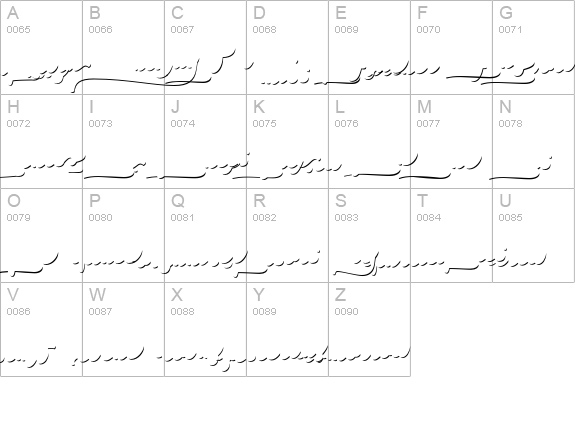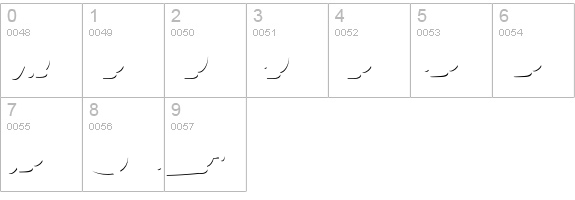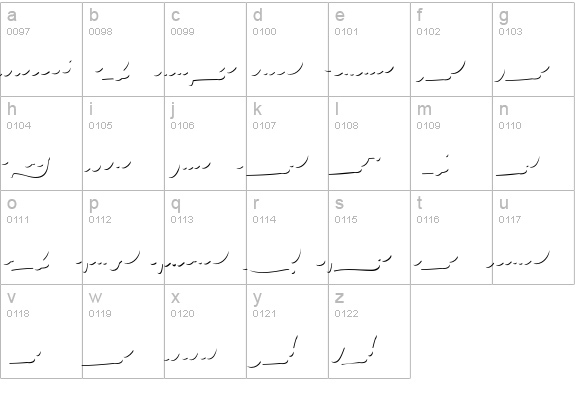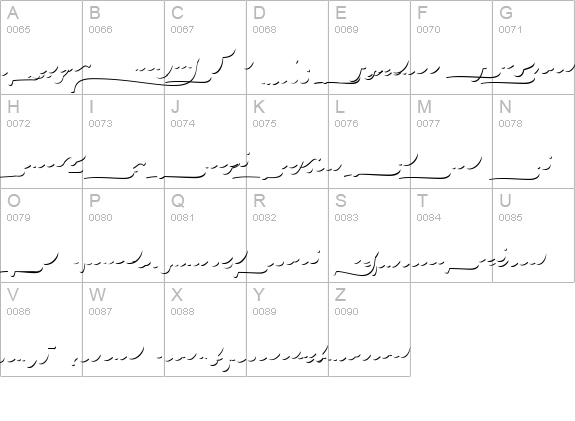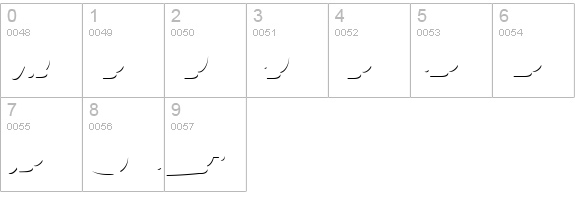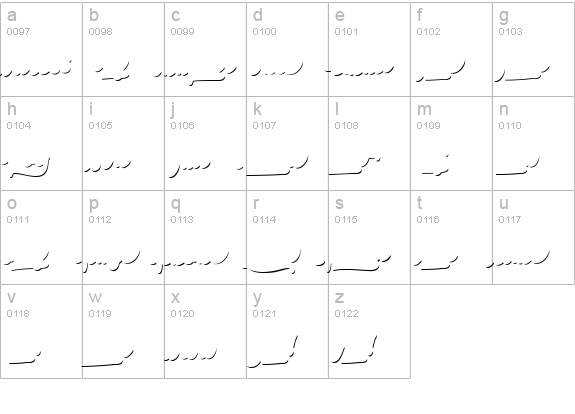
Bello-WordsShadow Font Details
Bello-WordsShadow font is a stunning display typeface that exudes elegance and sophistication. Its intricate details and unique shadow effect make it perfect for adding a touch of luxury to your designs. With its timeless appeal and artistic flair, Bello-WordsShadow font is sure to make a statement. What's even better is that this font is available for free download at FontsMarket.com. So go ahead and elevate your designs with this exquisite typeface today!